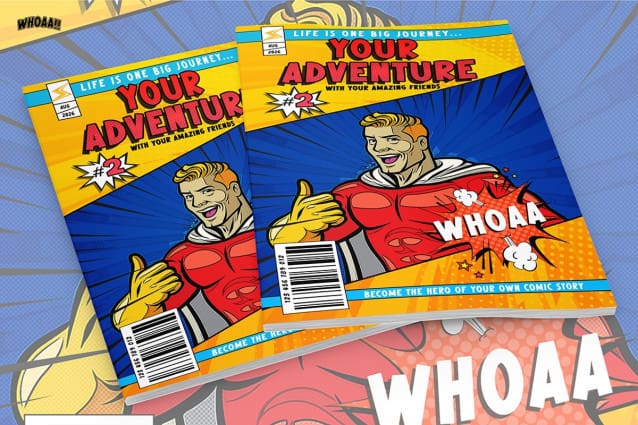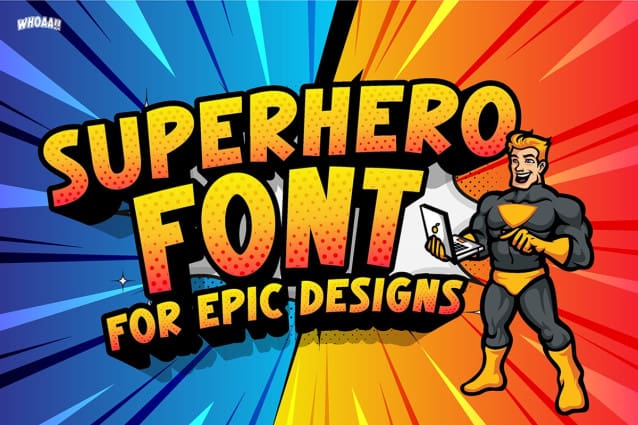
Whoaa Display Font
Whoaa Display Font – a vibrant, groovy, and playful typeface perfect for adding a bold comic vibe to your designs. With its colorful and energetic style, this font is ideal for posters, comics, children’s books, and any project that needs a fun, lighthearted touch. Each letter pops with character, bringing a sense of adventure and creativity to the forefront. If you’re looking to make your designs stand out with a retro-comic twist, Whoaa Display Font is your go-to choice!